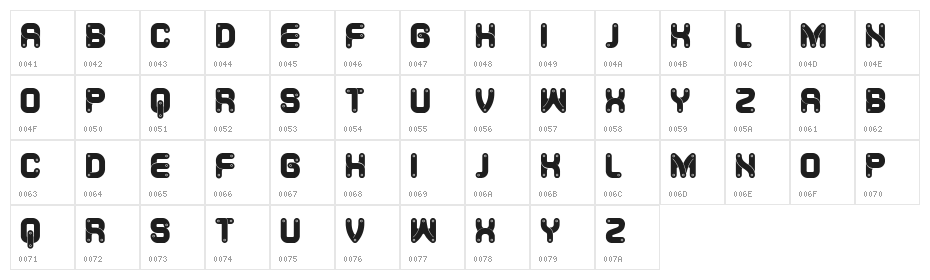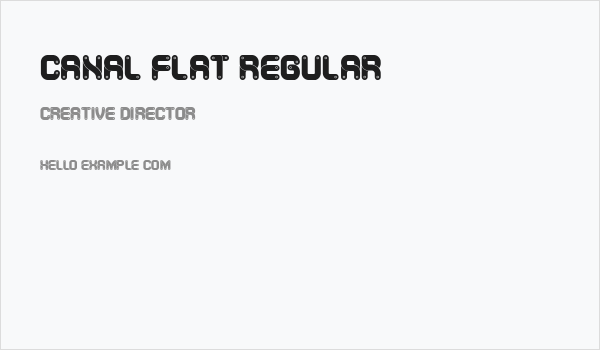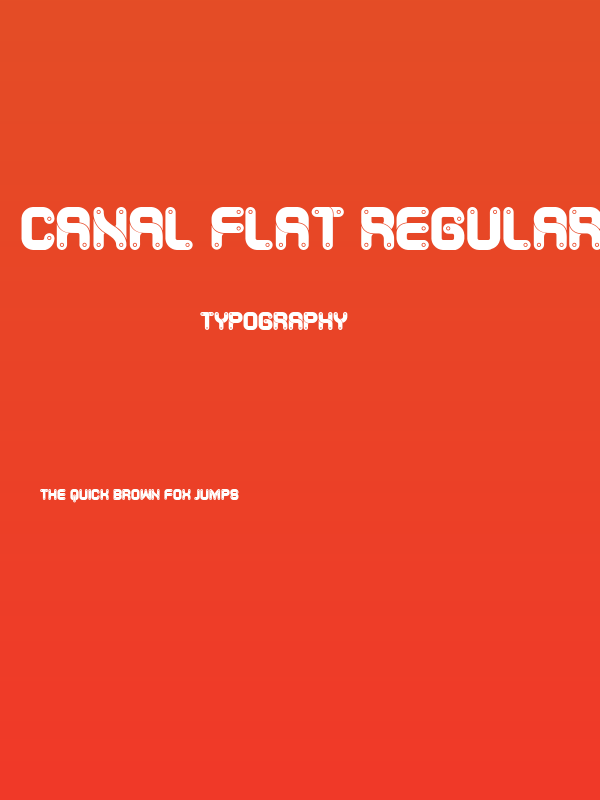
Canal Flat Regular Font
Canal Flat Regular Description
This font features a unique and bold design with a mechanical and industrial aesthetic. The characters are constructed with a series of interconnected segments, giving them a modular appearance. Each letter is adorned with small circular details that resemble rivets or screws, enhancing the mechanical theme. The font maintains a consistent thickness throughout, contributing to its bold and impactful presence. The overall style is modern and futuristic, making it suitable for projects that require a strong visual statement. The characters are evenly spaced, ensuring readability despite the intricate design elements.
| Proposed Projects | Ideal for branding, posters, and any design work that requires a futuristic or industrial theme. |